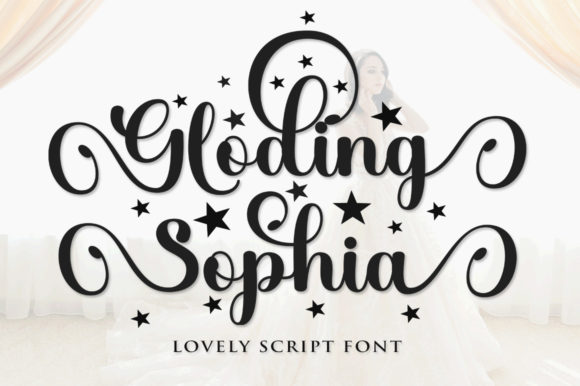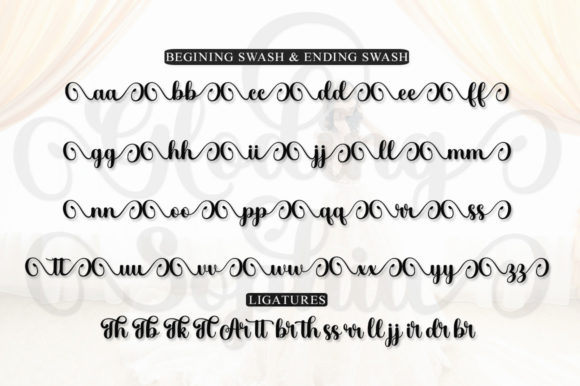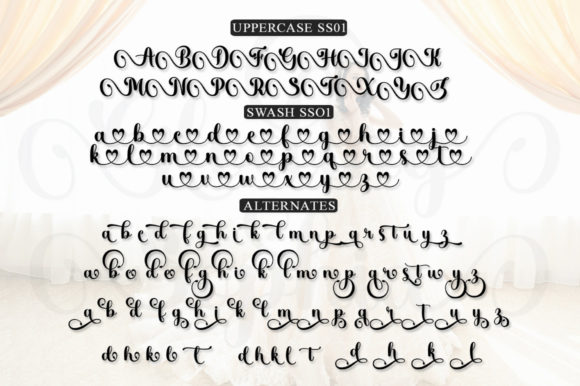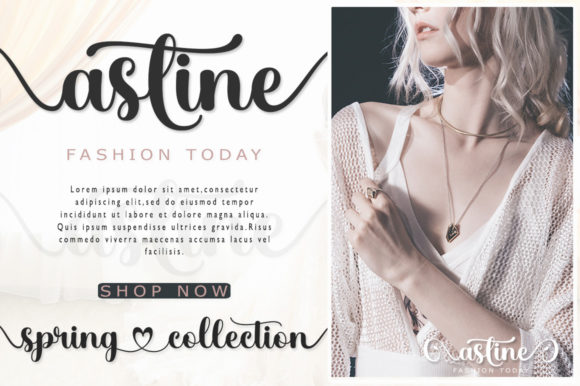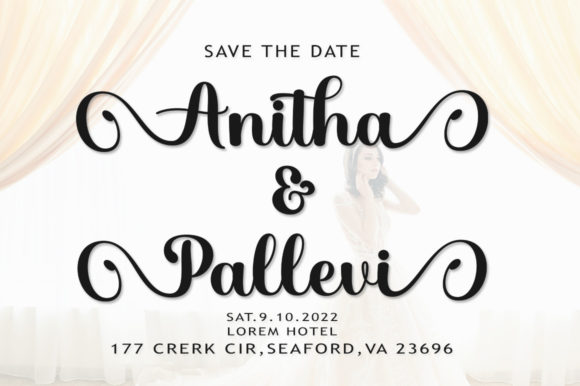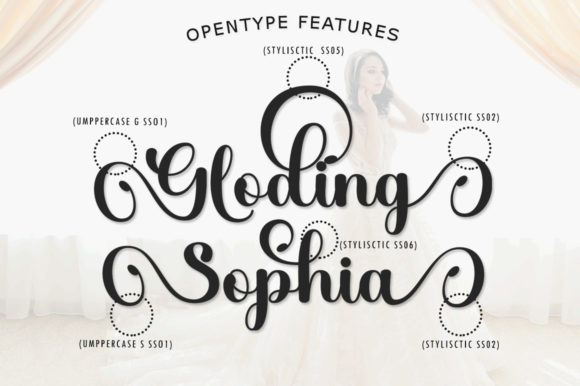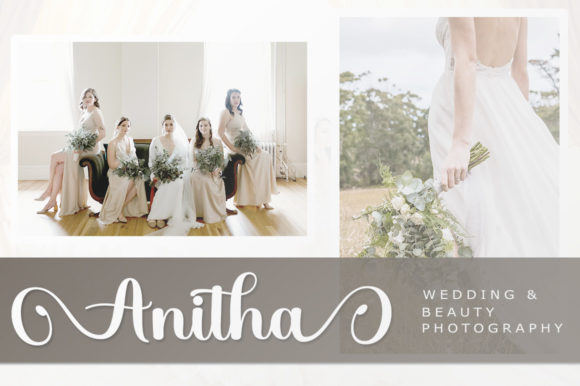
About Gloding Sophia Script Font
Gloding Sophia Script is an enchanting handwritten font. This versatile script font has a wide spectrum of applications ranging from greeting cards to headlines and is guaranteed to add a romantic feel to your next project. Gloding Sophia Script is PUA encoded which means you can access all of the beautiful glyphs and swashes with ease!